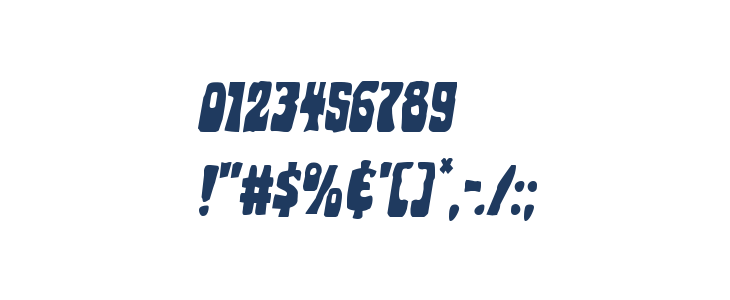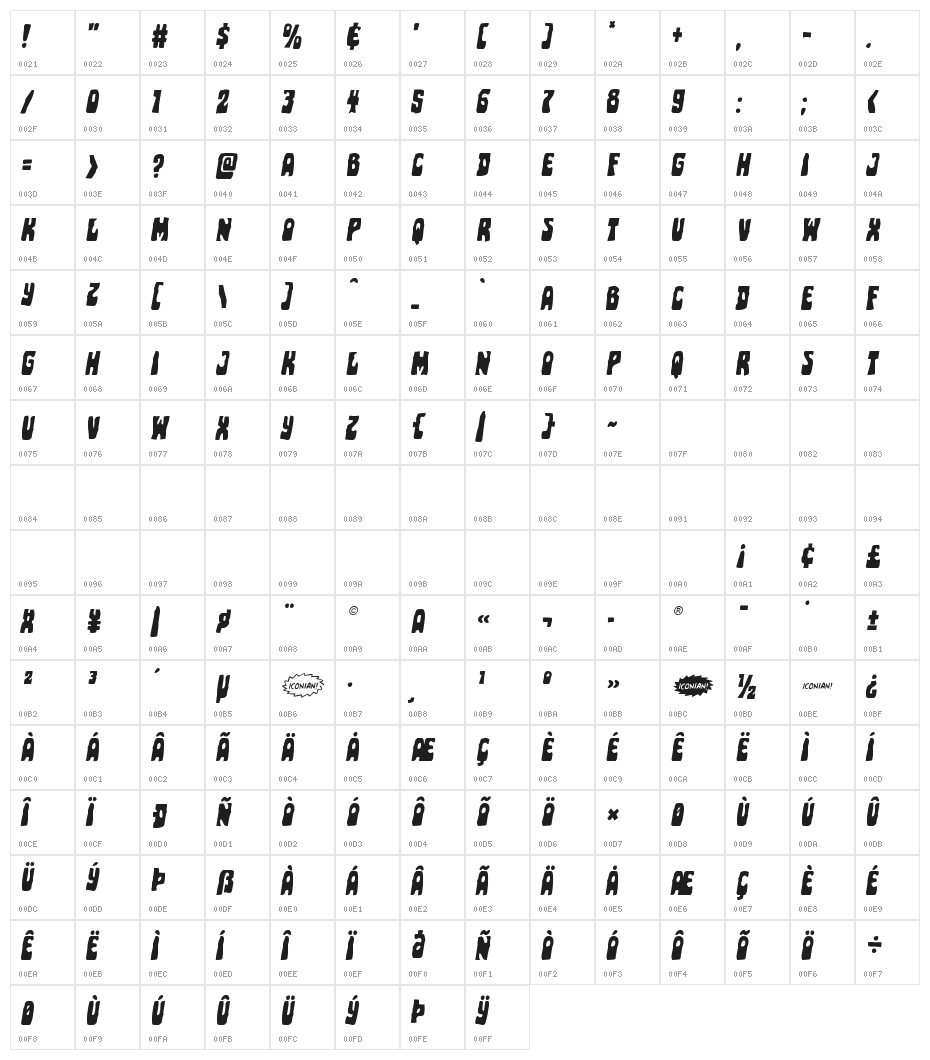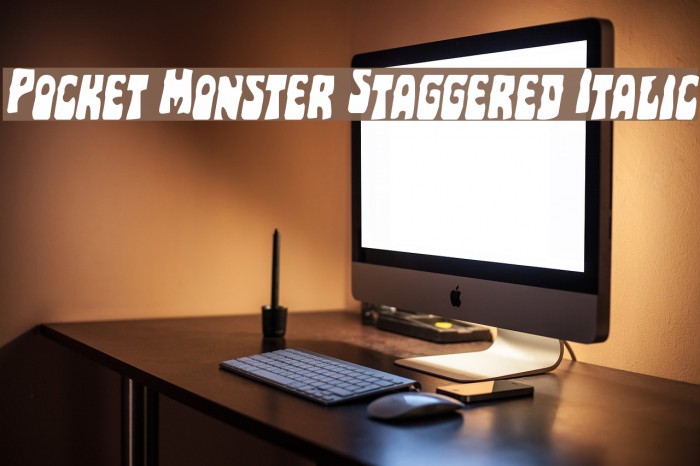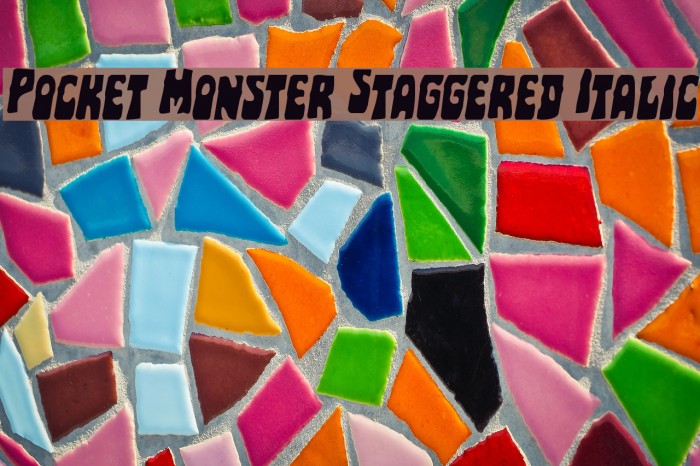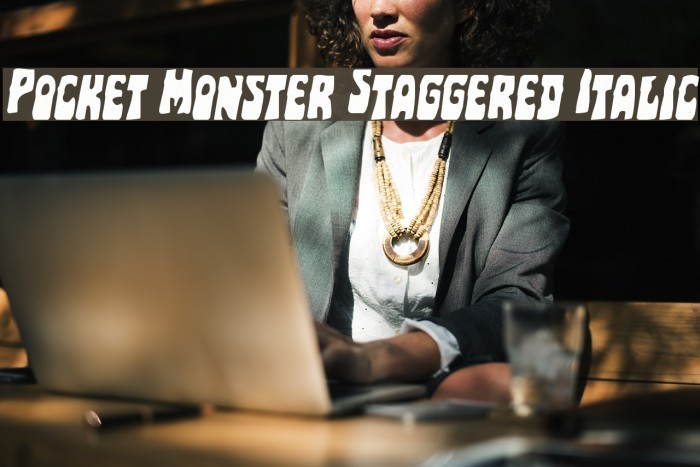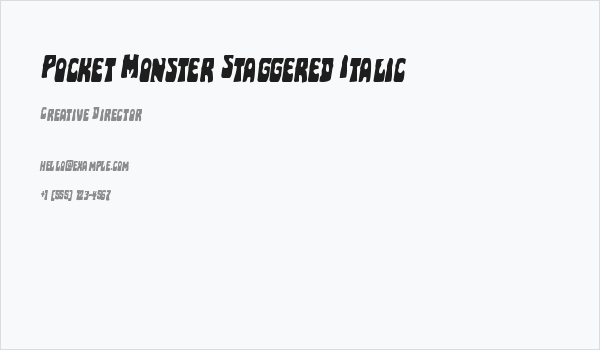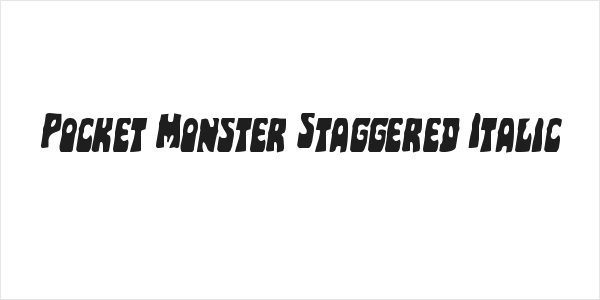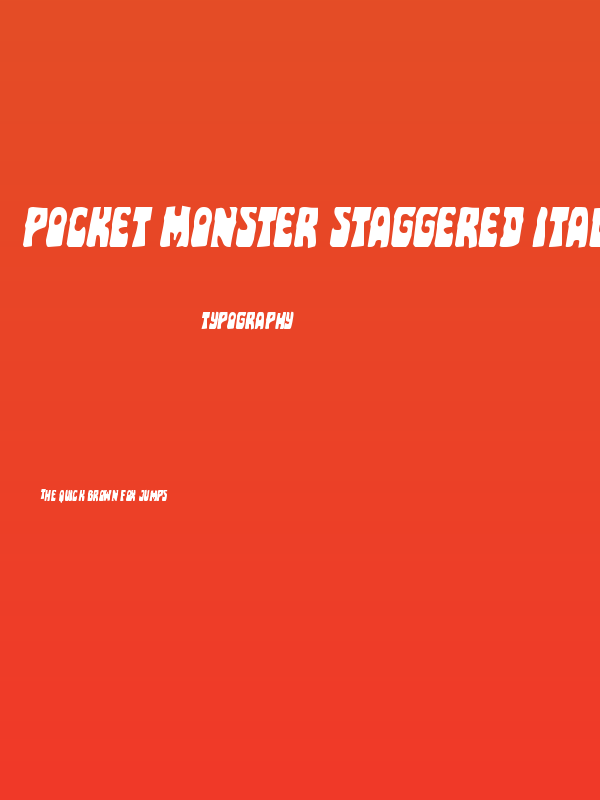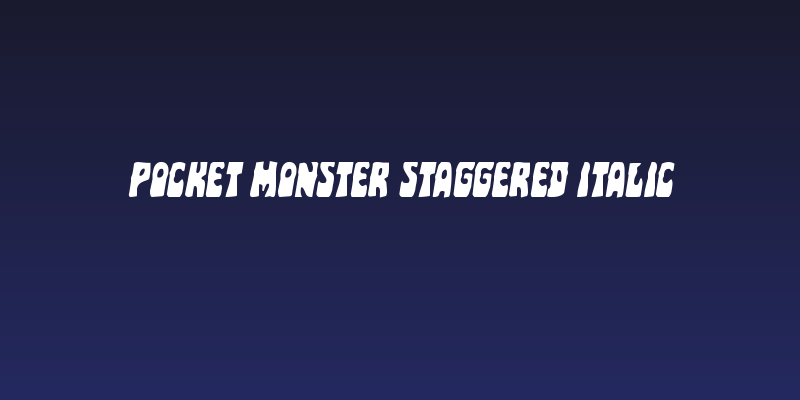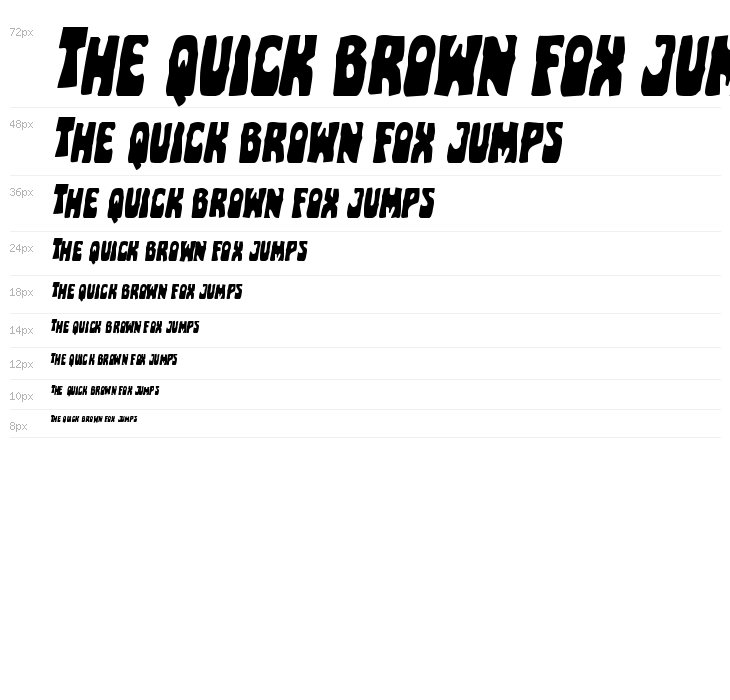
Pocket Monster Staggered Italic Font
Pocket Monster Staggered Italic Description
This font features a bold and dynamic design with a staggered, italicized style that gives it a sense of movement and energy. The characters are thick and robust, with a playful yet aggressive appearance. The uppercase and lowercase letters maintain a consistent style, with exaggerated curves and angles that create a unique visual rhythm. The numbers and special characters are equally bold, ensuring a cohesive look across all elements. This font is ideal for projects that require a strong, eye-catching display typeface.
| Proposed Projects | Perfect for video game titles, comic book covers, posters, and branding that requires a bold and energetic typeface. |